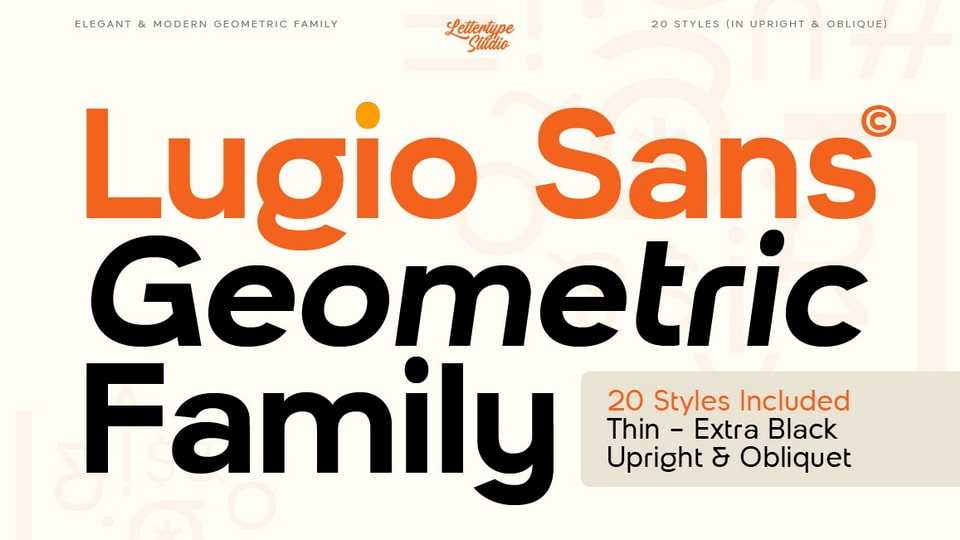
Download Lugio Sans font, a modern grotesque sans-serif typeface designed with clarity, control, and versatility in mind. Lugio Sans is rooted in geometric precision and modernist structure, while embracing the warmth of humanist touches.
Designer: Lettertype Studio